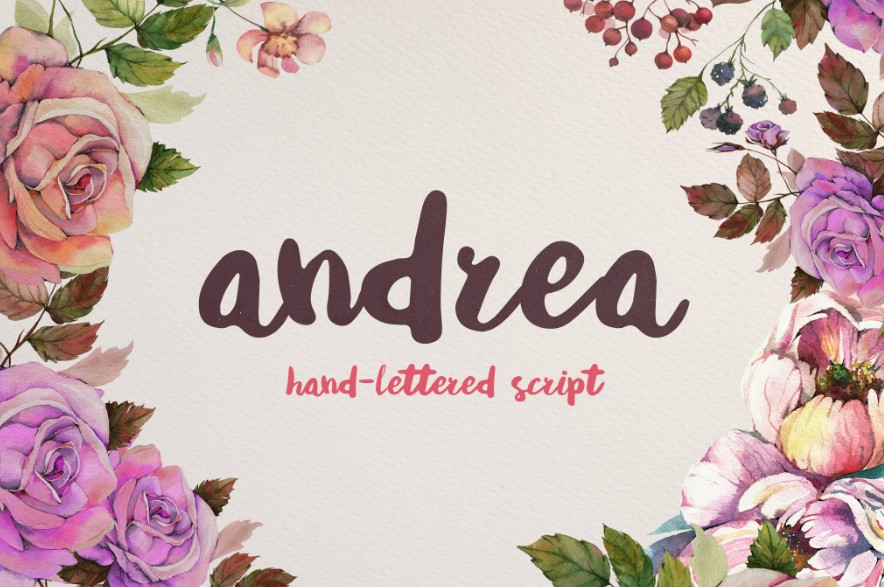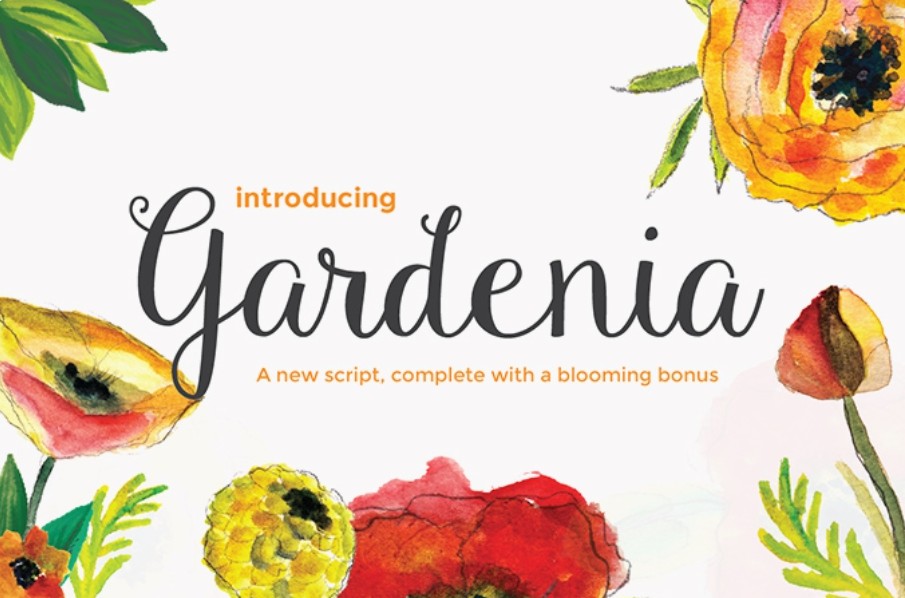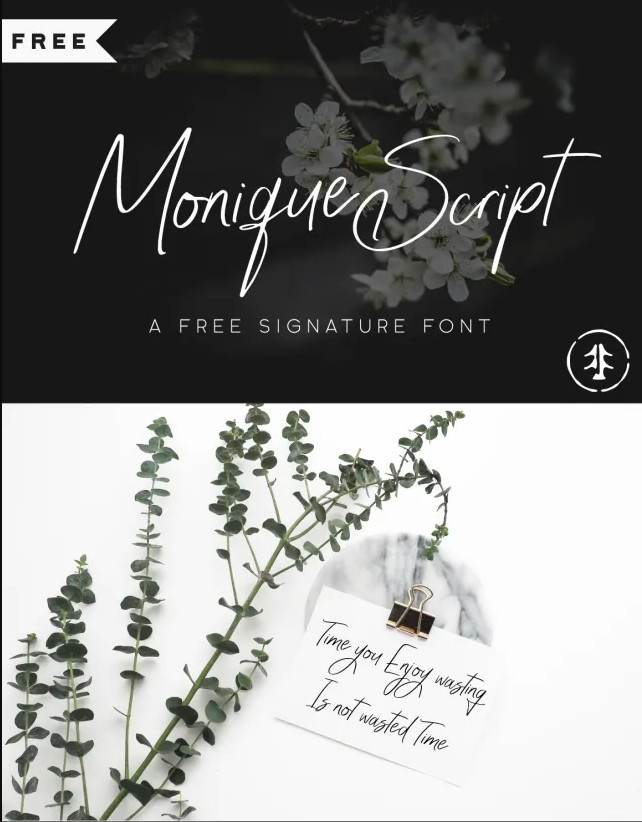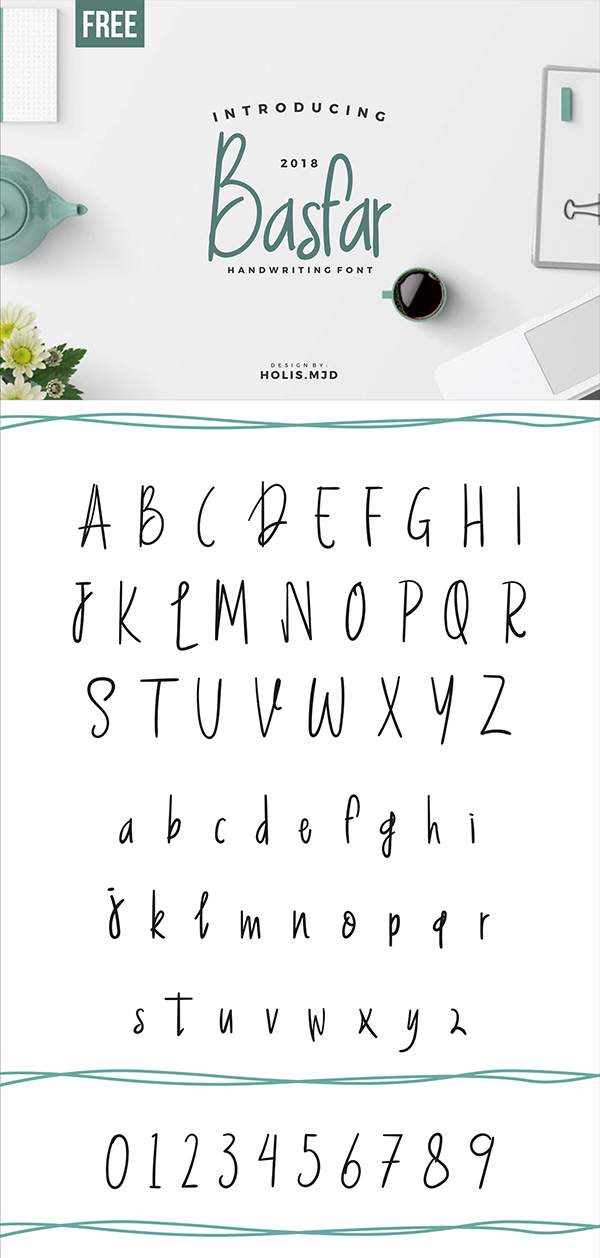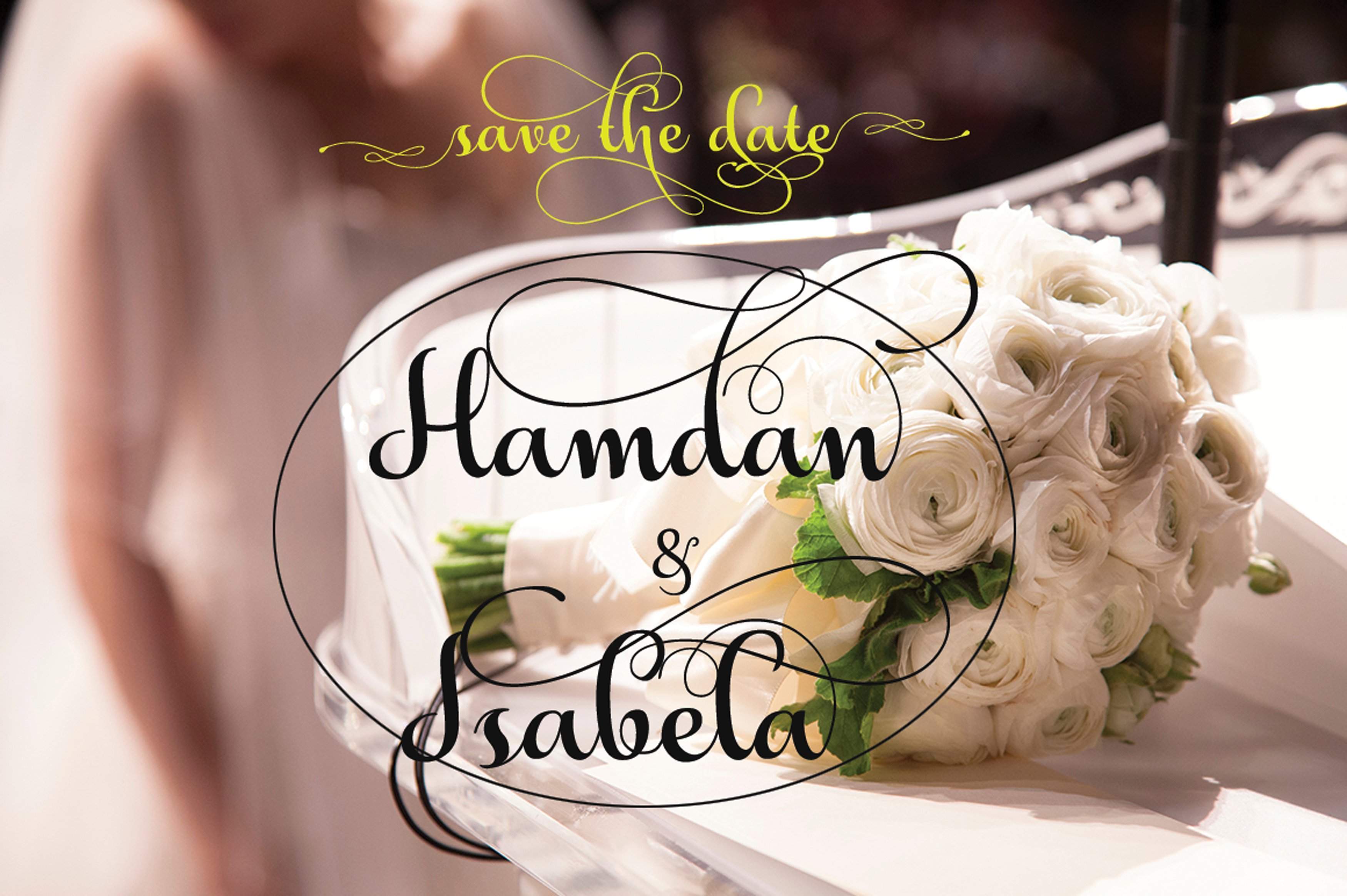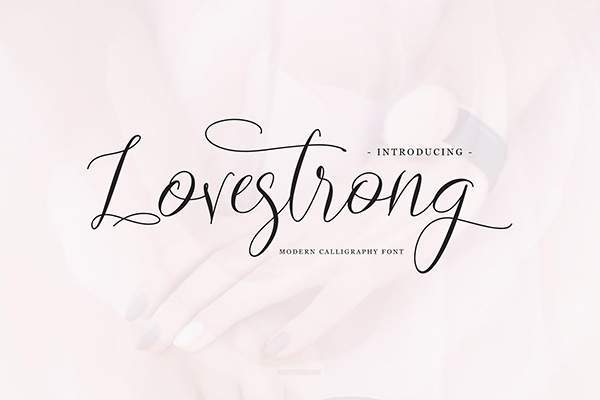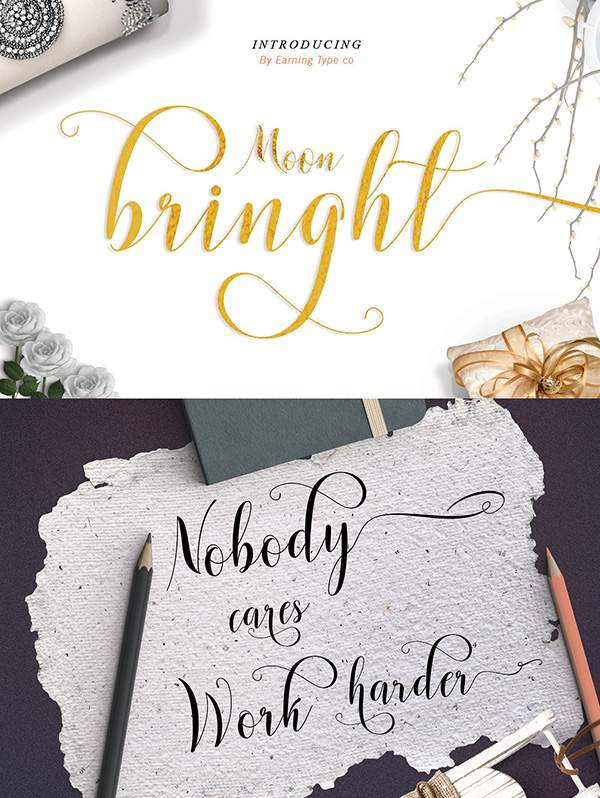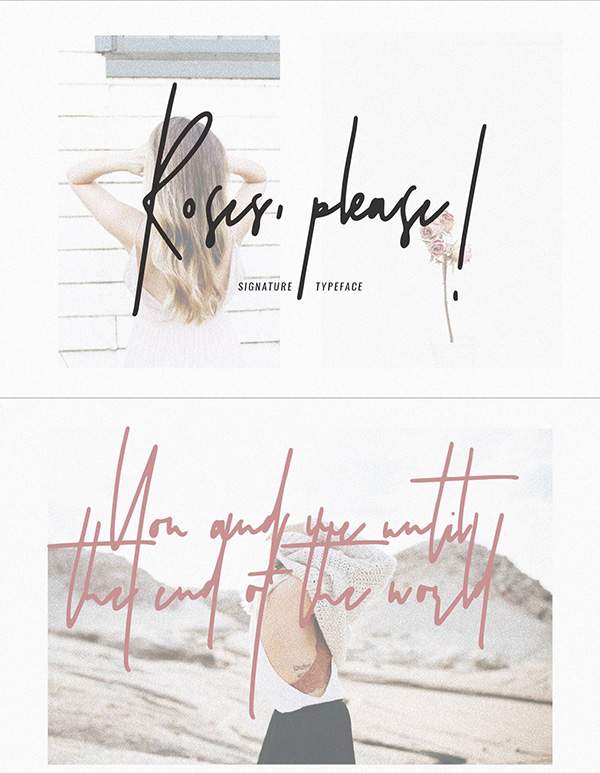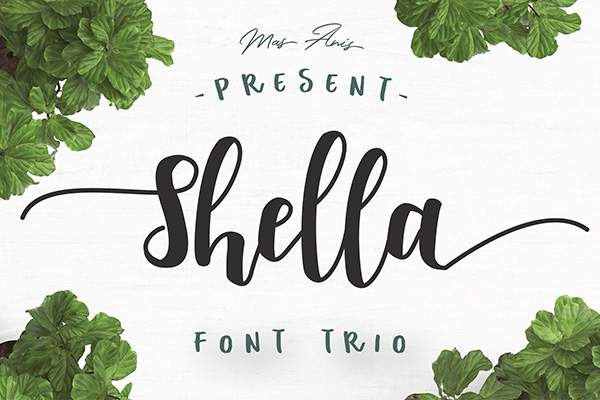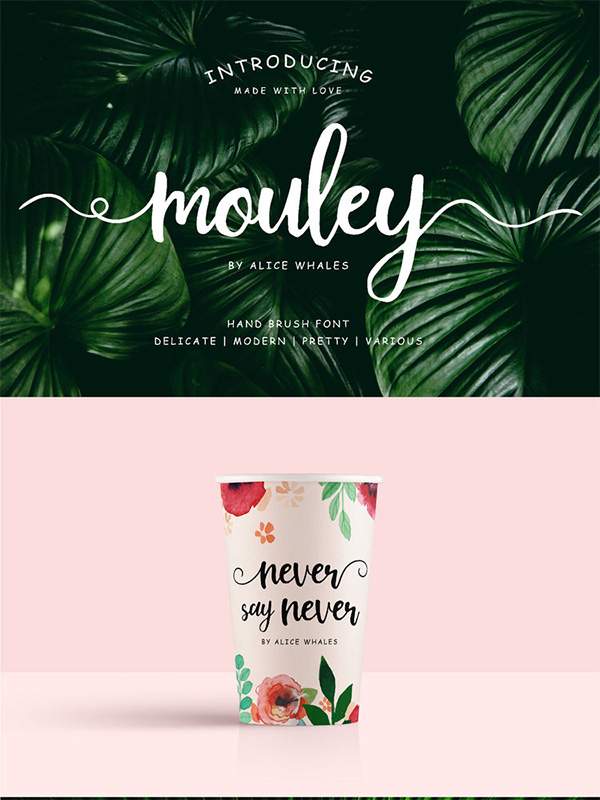
Top Free Wedding Fonts for Elegant Invitations
Planning to design beautiful wedding invitations? Typography is a key element in setting the tone for your special day, and the right wedding fonts can make your invitations truly unforgettable. From elegant calligraphy and handwritten styles to timeless classics and romantic scripts, the fonts in this curated collection will add a personal and charming touch to your wedding stationery.
Why Use These Wedding Fonts
Choosing the perfect wedding font is essential for creating a cohesive and stylish design. These fonts enhance the overall aesthetic of your invitations, RSVP cards, save-the-dates, menus, and even wedding programs. Whether your wedding theme is modern, rustic, vintage, or classic, the right typography can complement your vision beautifully.
Tips for Using Wedding Fonts
Pair handwritten fonts with minimal serif fonts for a timeless and sophisticated look. Use bold scripts sparingly for names or headings, while lighter styles work well for body text. These free wedding fonts are ideal for both printed invitations and digital stationery, ensuring a seamless and elegant presentation across all formats.
1. Ihlimia Romantic font
2. Australis – Handwritten font
3. Moonbringht Font
4. Restless Font
5. Handwritten font
6. Mouley Font
7. Shefilla Font
8. Laura Hellaw Font
9. Basfar Handwriting Font
10. Lovestrong Font
11. Monique wedding font
12. Lady Angelina font
13. Apalu Font
14. Criselda Font
15. Volletra Font
16. Roses, please – Wedding Font
17. Stay Classy font
18. Andrea Script
19. Gardenia Script – elegant font
20. Mailinda Wedding Font
21. Just Smile Font
22. Symphony Font